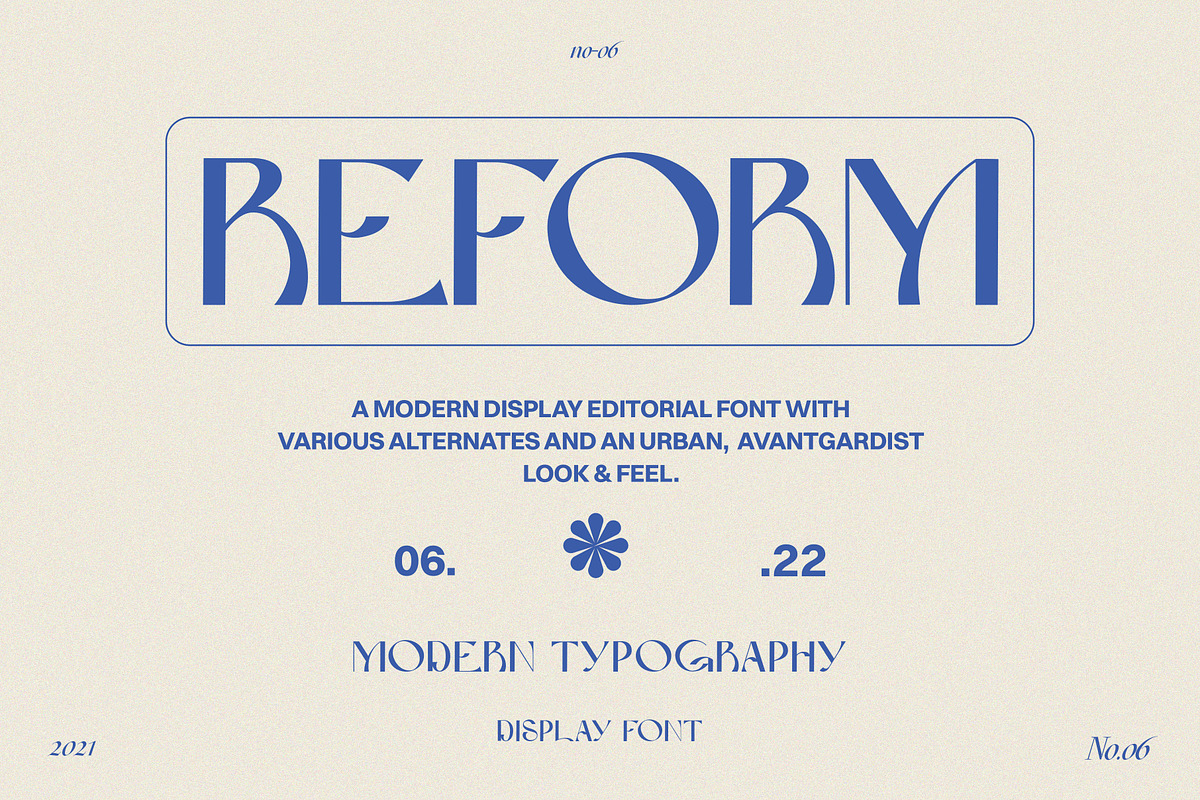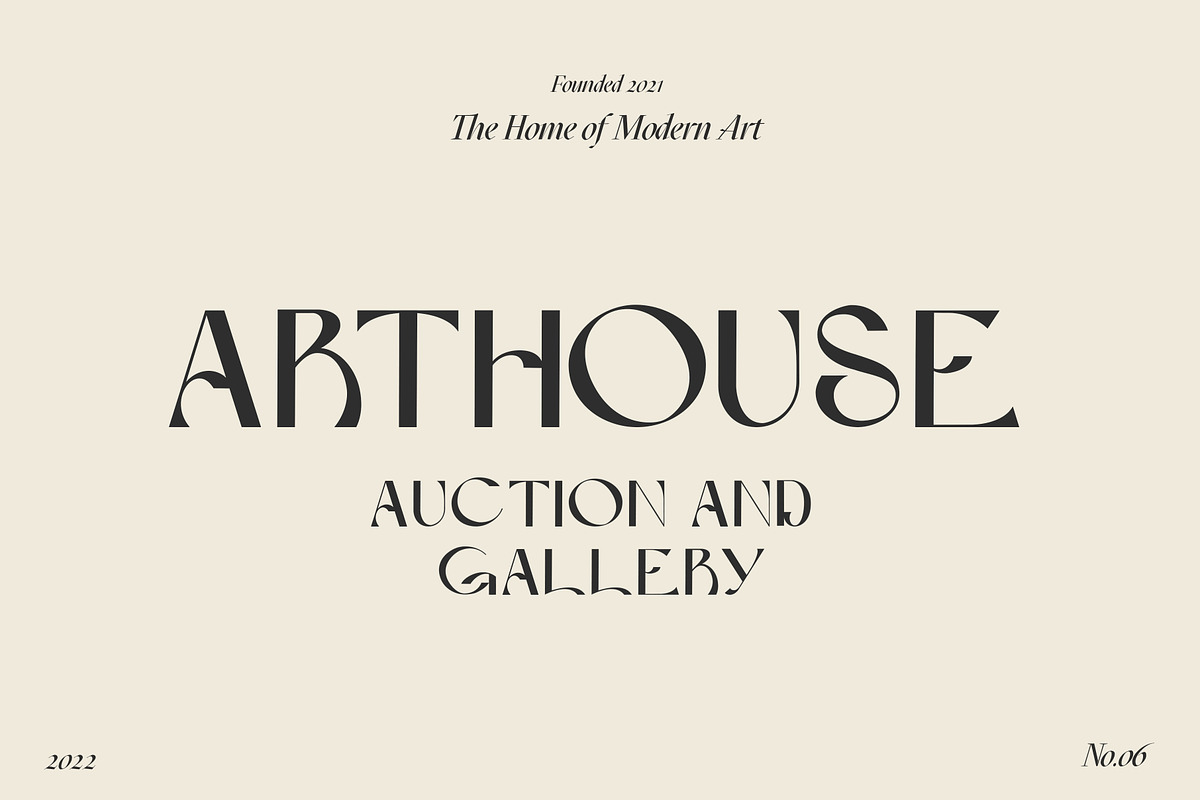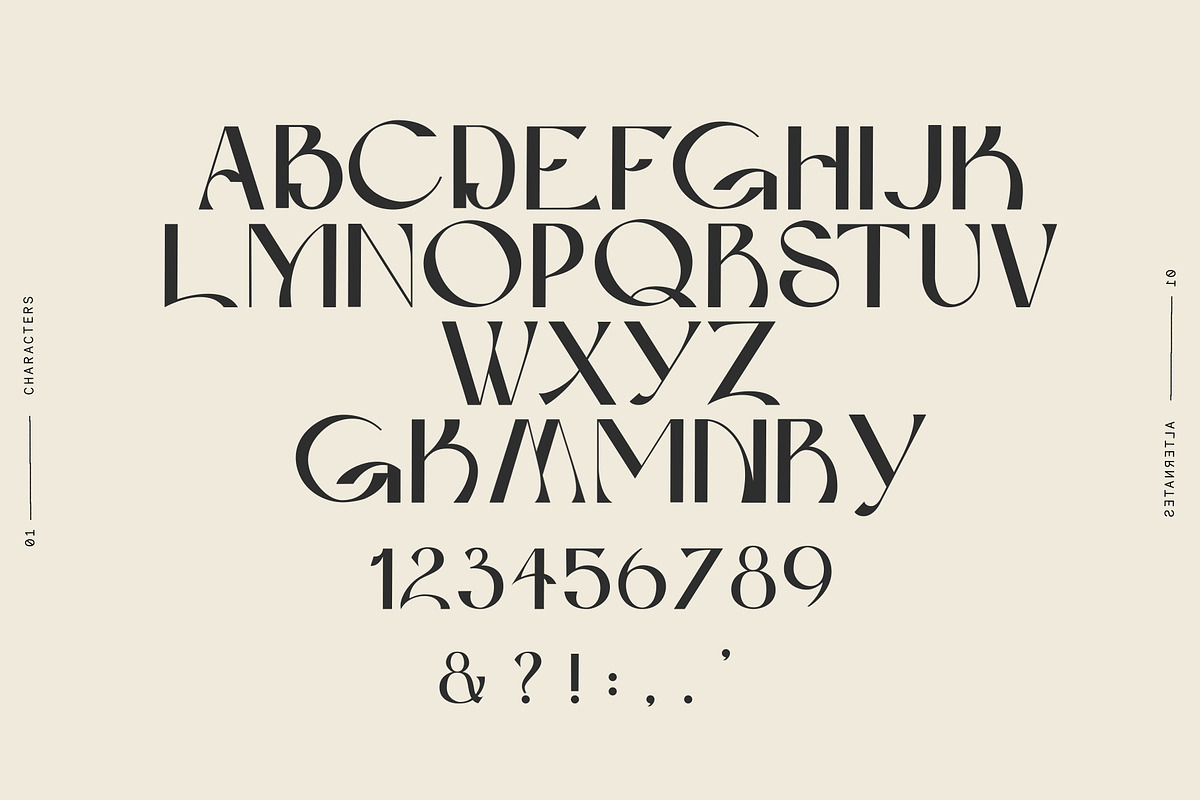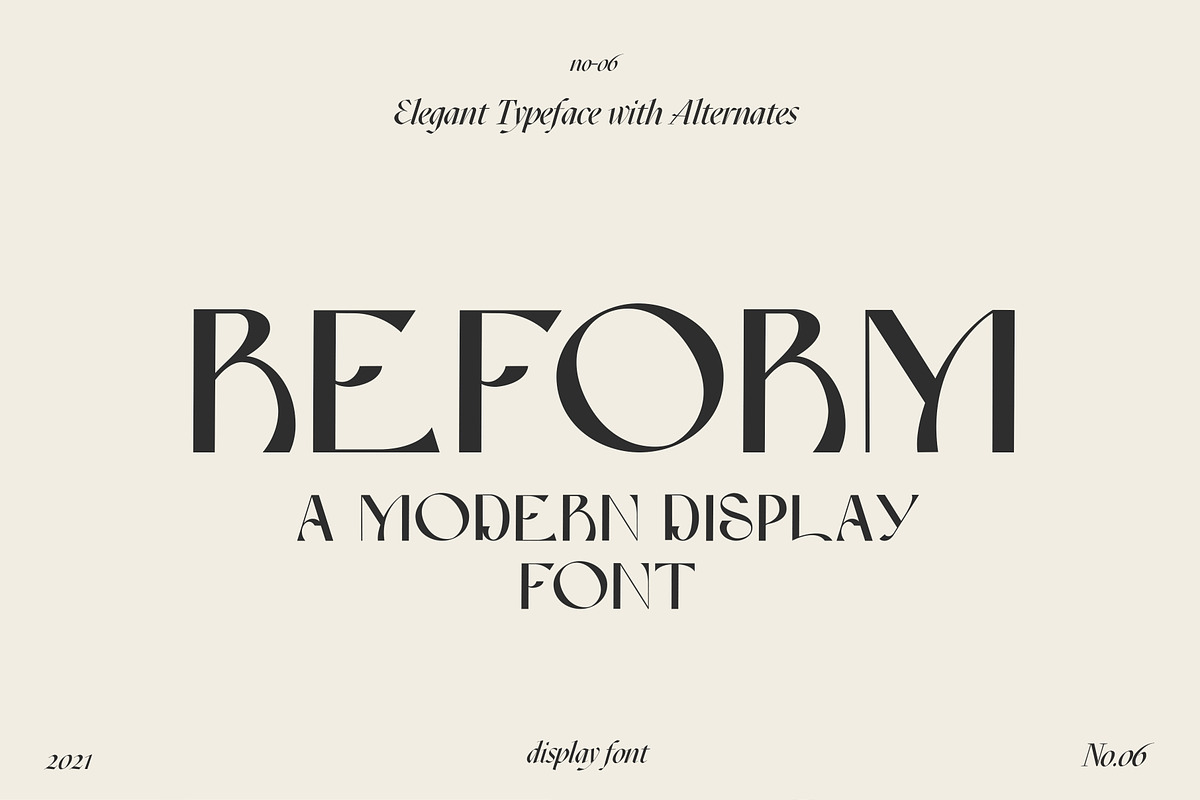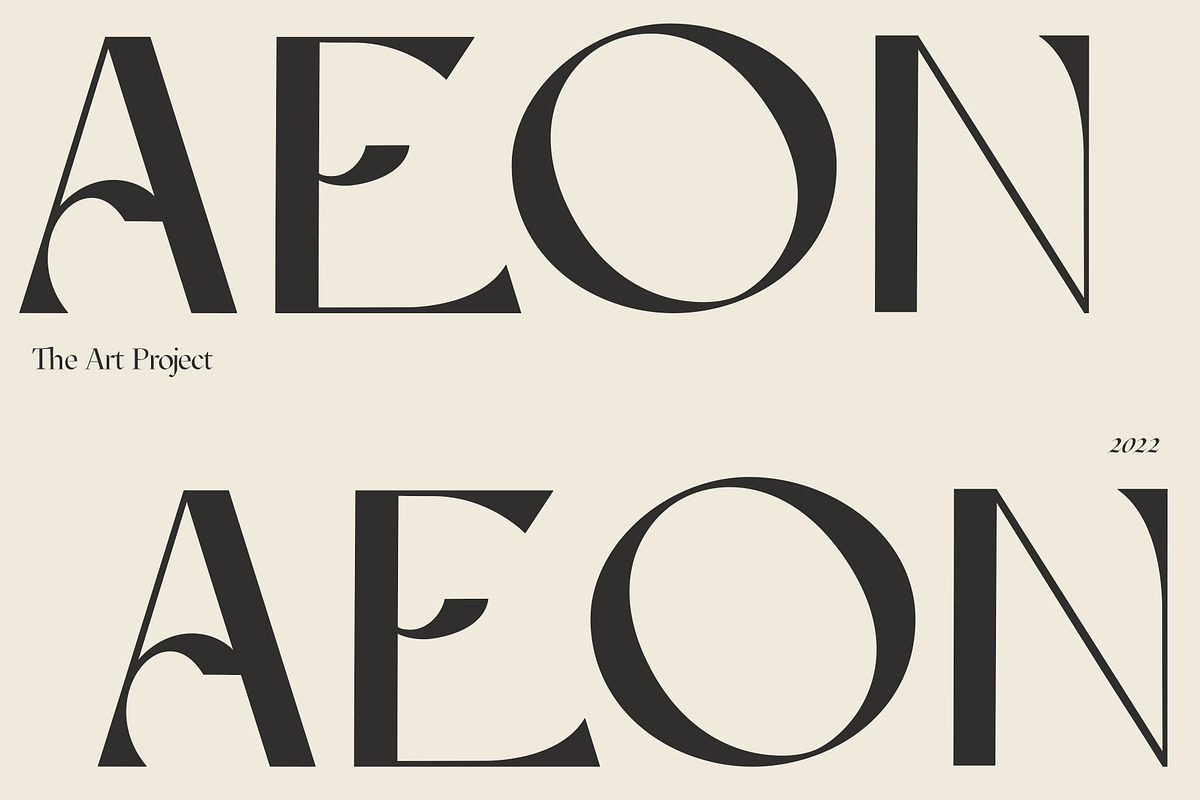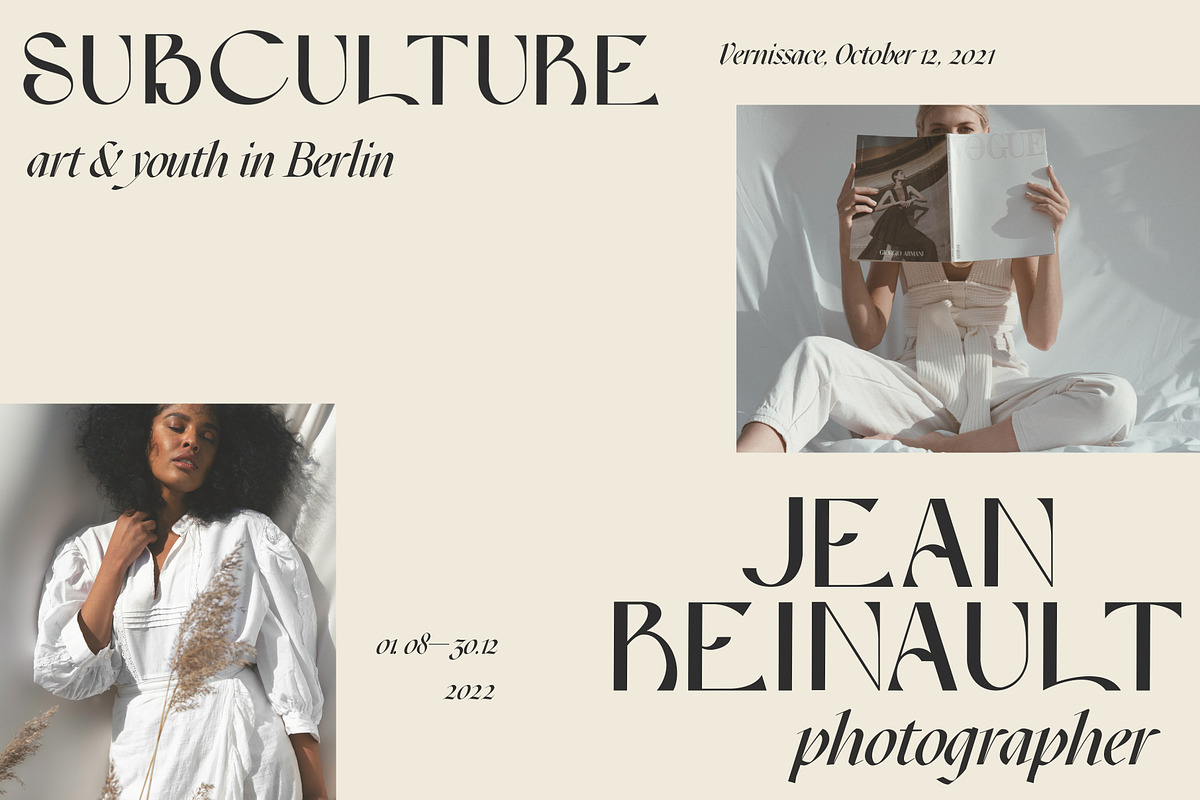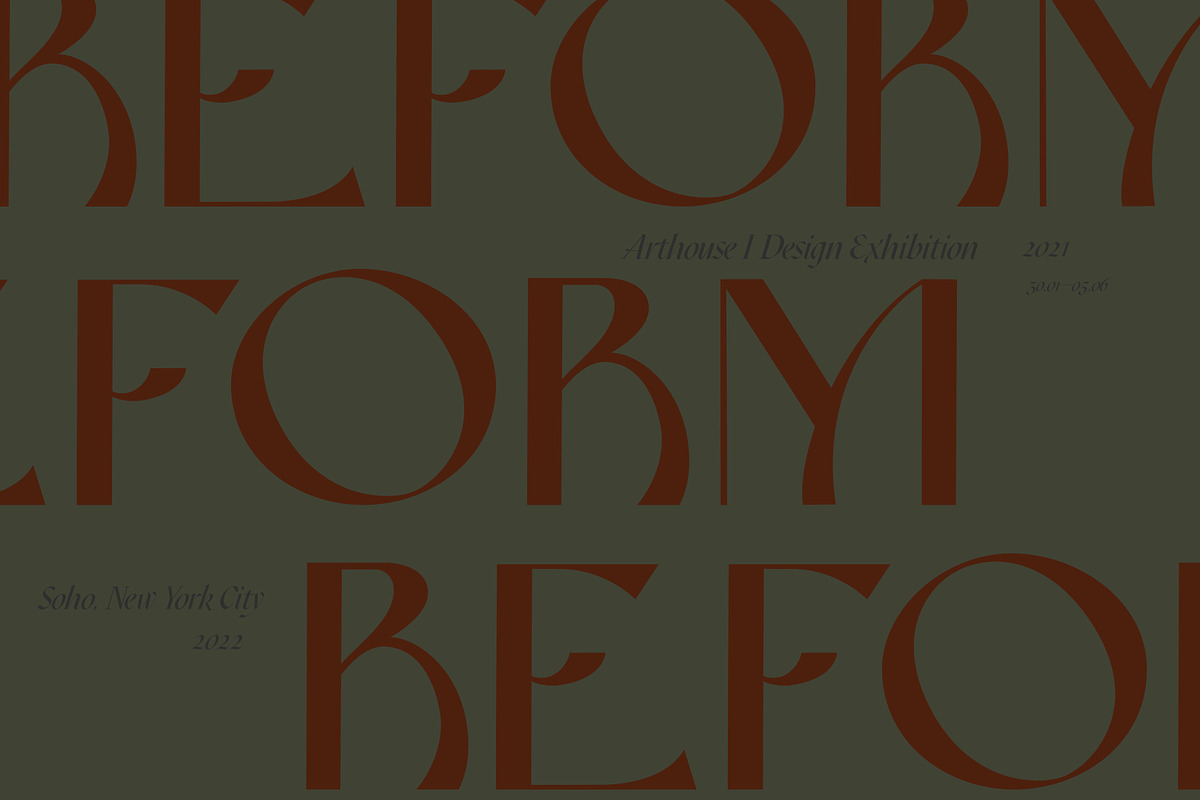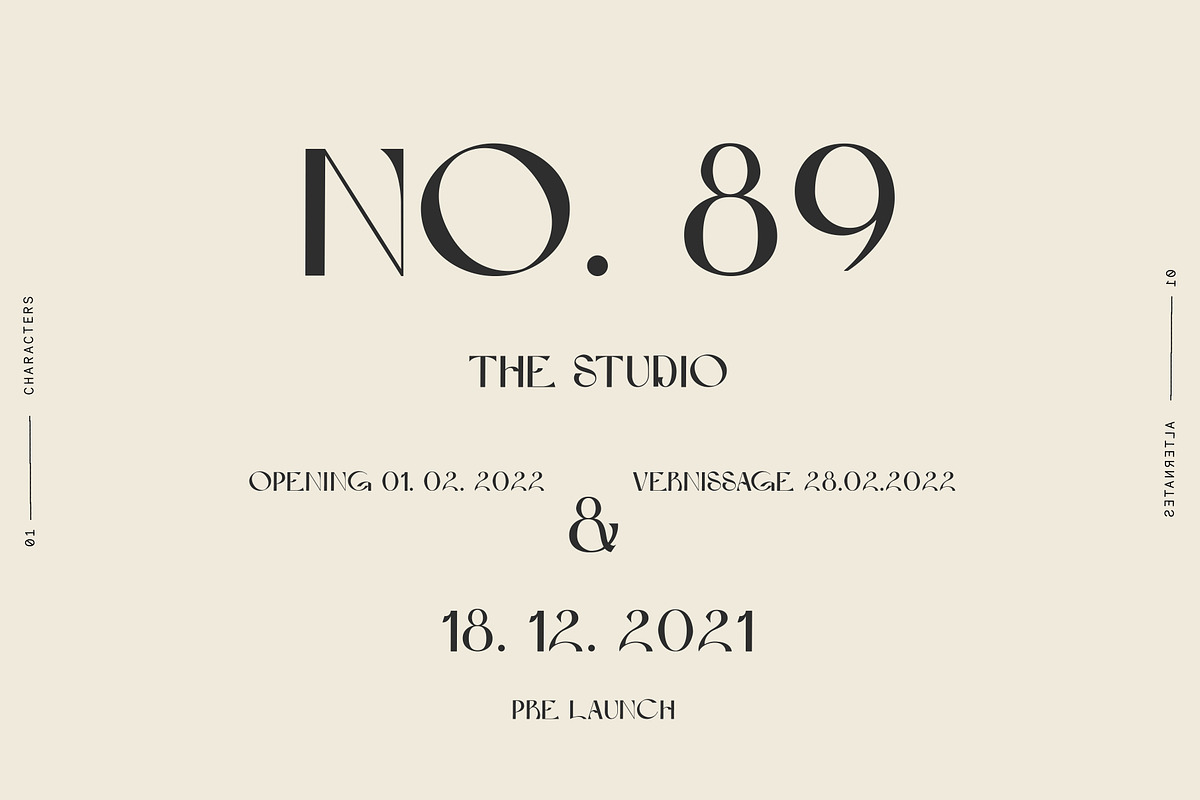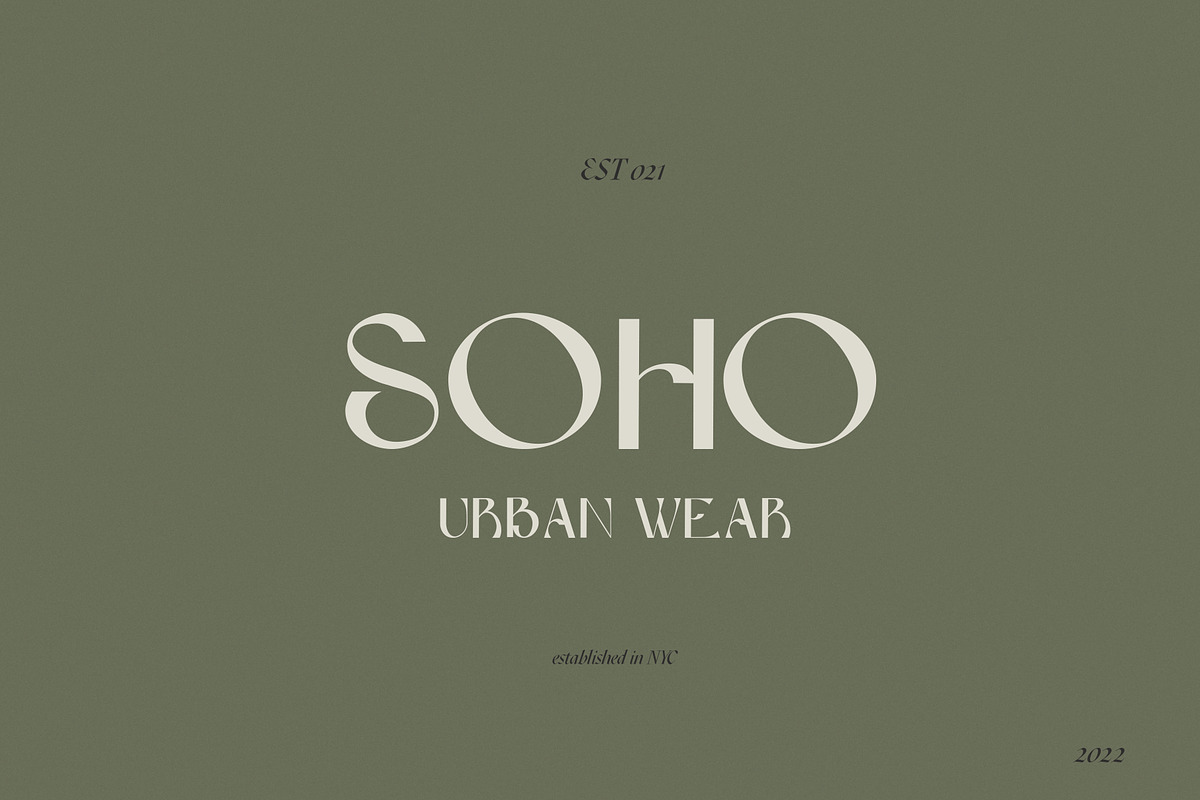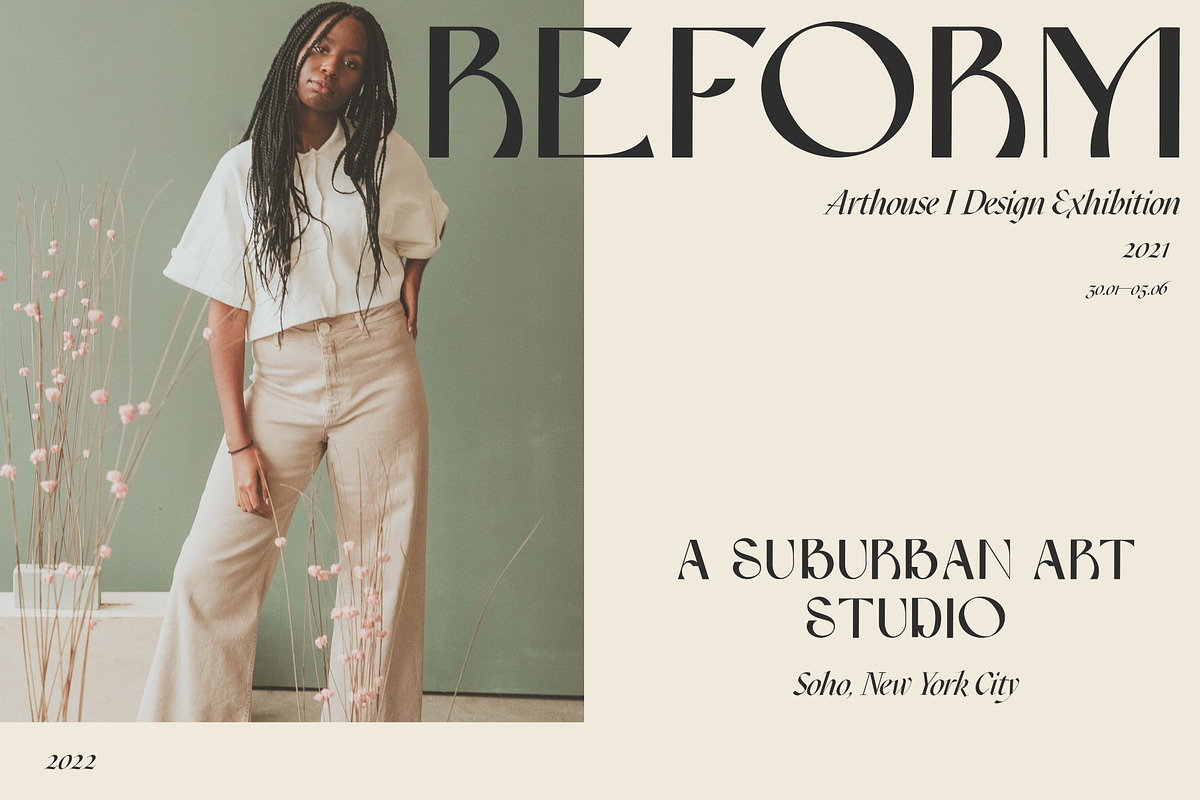
Reform Modern Display Font
Introducing Reform - a modern display font, perfect for bold headlines, editorial design and chic highlights. A contemporary font, playing with modern and classic elements, effortlessly adding an urban style to your project. Highlight your artwork, logo, brand or website with the artful shapes of minimalist letters - or choose from the carefully selected alternates.
- including: Uppercase Alphabet, numbers, punctuation